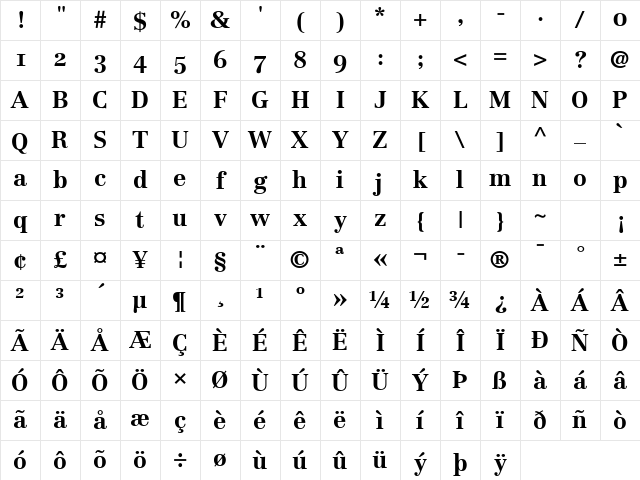
Centennial RomanSC Bold
Design Context for Centennial RomanSC
Centennial RomanSC is a composed and adaptable typeface that performs quietly and consistently across a wide range of design contexts. Its bold stroke weight gives it real presence on the page.